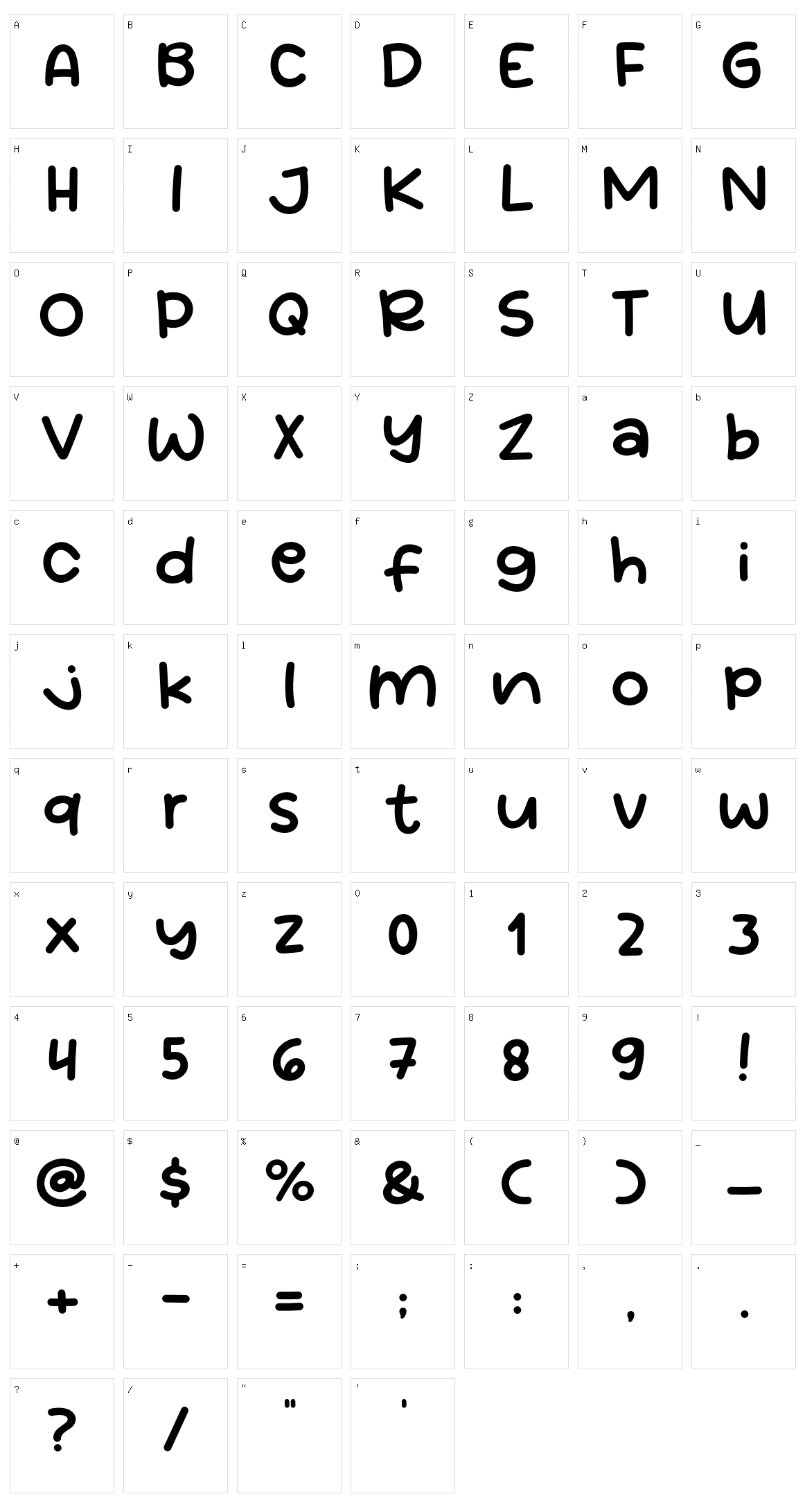
The free font Yogurt Mango is carefully designed by Khurasan, showcasing a thoughtful balance of creativity and usability and falls under the Cartoon font style. When you download the ZIP file, it contains only 512.69 KB of font files, making it lightweight and quick to download. Please review the license details below to understand permitted usage and distribution rights. If license information is not available, we recommend using this font for personal projects only or contacting the author directly for commercial usage permissions.